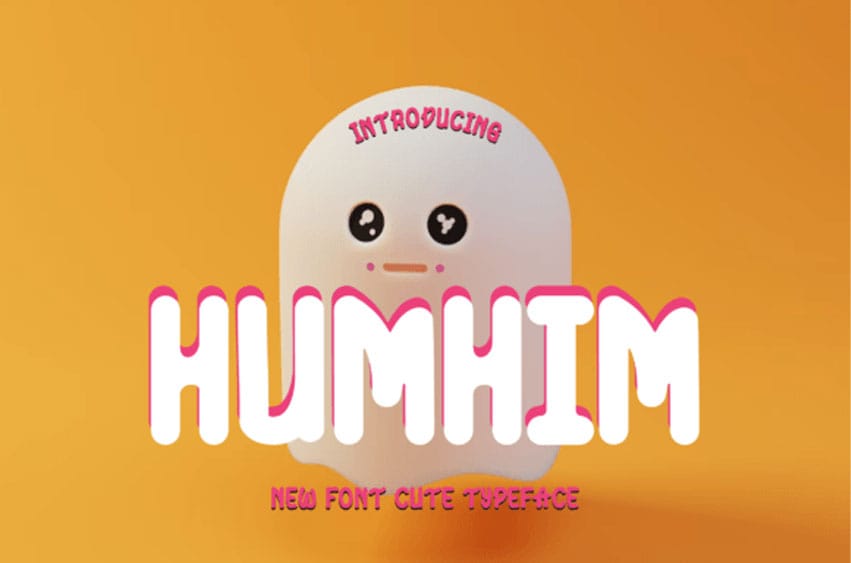
Humhim Font is a lovely display font that feels playful and modern.
This font is perfectly suited for a wide variety of projects, such as signature, stationery, logo, wedding, typography quotes, magazine or book covers, website headers, clothing, branding, packaging design, and more.